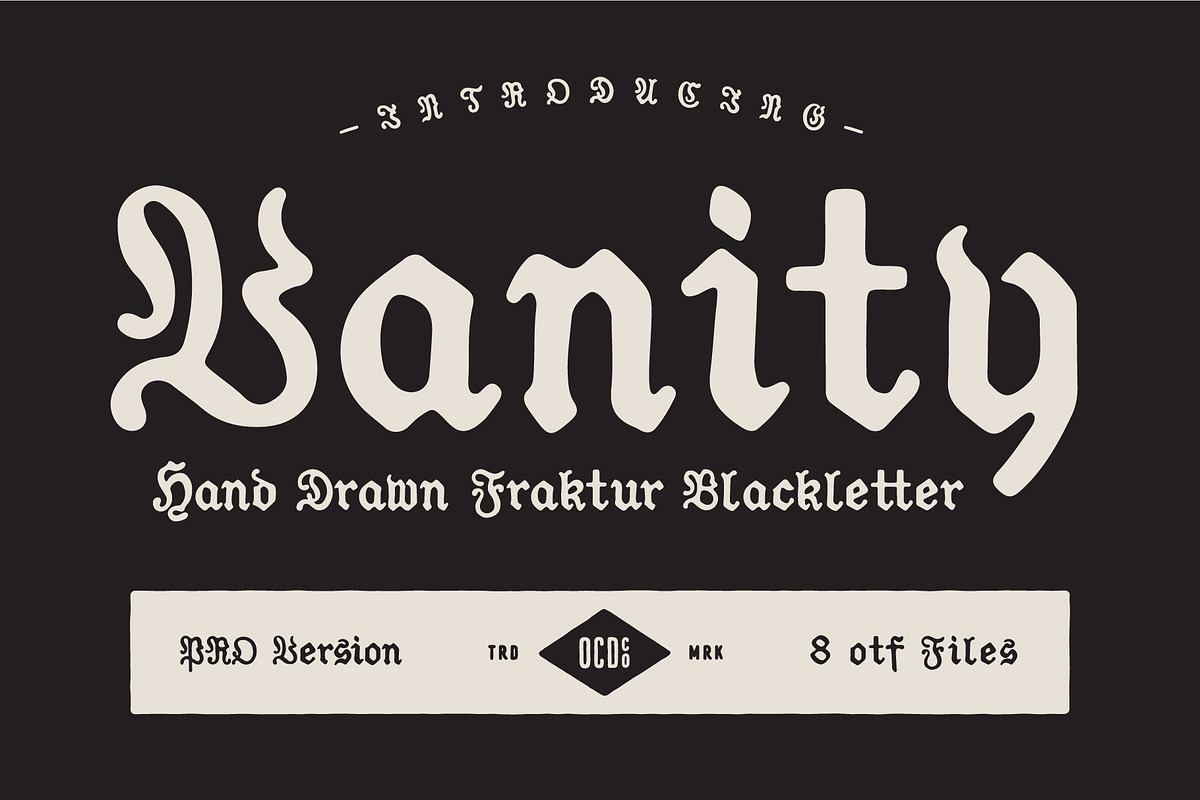
Vanity – Fraktur Blackletter Font
Introducing Vanity, a classic Fraktur Blackletter font designed by Phil MacIsaac. This font features a hand-drawn style adapted for enhanced readability, making it suitable for various design projects.
Features:
Style Included: Regular
Character Set: Uppercase and lowercase letters, numerals, and basic punctuation
Usage Recommendations:
Vanity is ideal for projects requiring a vintage or traditional aesthetic, such as:
Logos
Headlines
Posters
Branding materials
Invitations